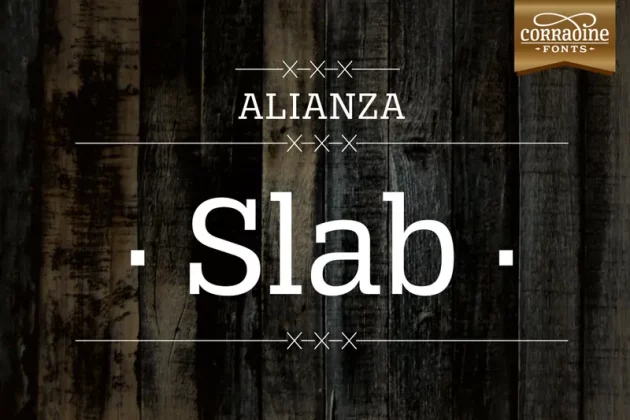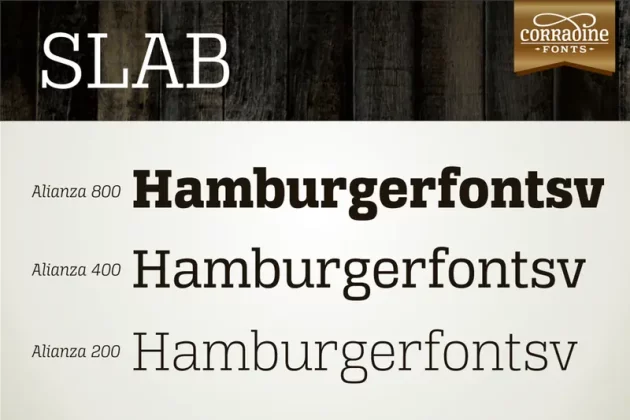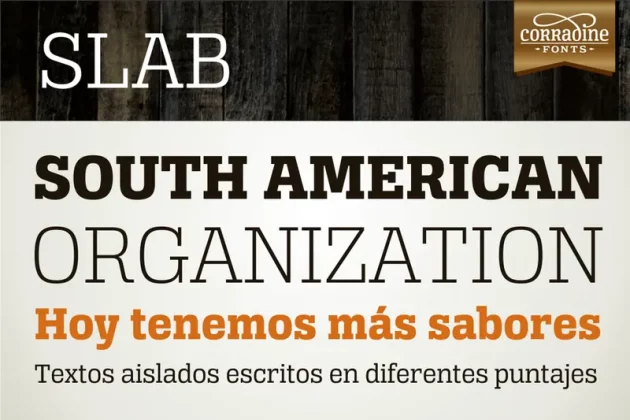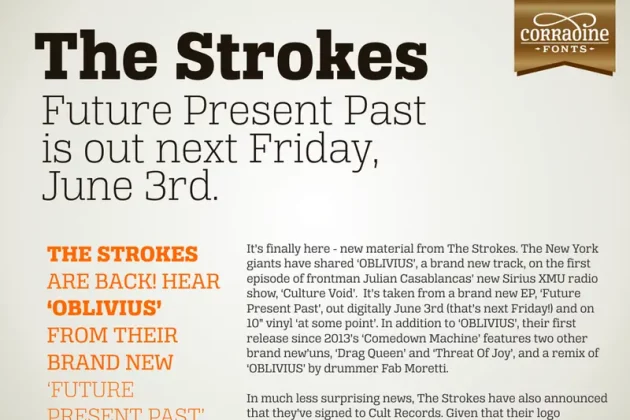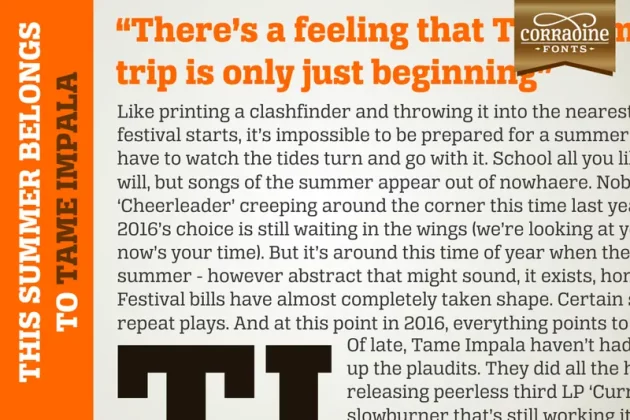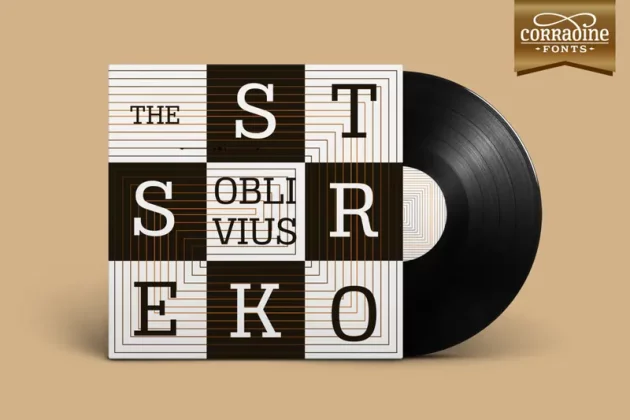
Alianza Slab Font
About Alianza Slab Font
Alianza is a complex typographic system with slab soul, which includes three different but complementary styles so far: Slab, italic and script. This is the Slab version and you can mix it with the other two styles and complement your designs with the sets of ornaments and Labels which are available here in Creative Market too.